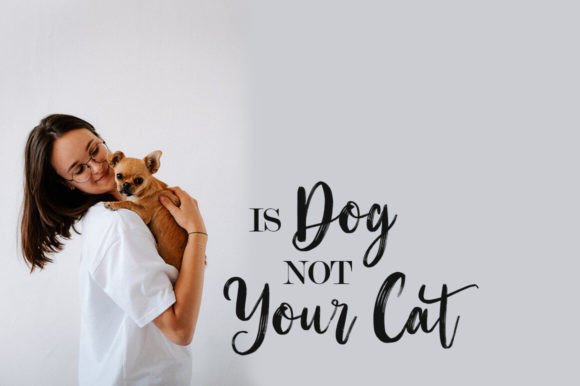
Introduction to Marley Garden Font
Remember the moment when you stumbled upon the perfect font to match your creative vision? The one that elevates your design from good to great? For designers, finding that special something can be a game-changer. That’s exactly what the Marley Garden Font offers – a unique blend of quirkiness and elegance that sets it apart from the rest.
With over 150+ extravagant glyphs, Marley Garden Font is a design resource that’s sure to add a touch of personality to your creative project. Whether you’re working on a logo, product packaging, or a wedding invitation, this high-quality font is sure to make a statement. Plus, its transparent background makes it easy to use in any design scenario.
Key Features of Marley Garden Font
- Unique, hand-drawn style with a transparent background, allowing for easy customization
- Perfect for use in digital design, including web and mobile applications, as well as print materials
Honest Review: Marley Garden Font
I recently stumbled upon the Marley Garden Font, and I must say it’s been a delightful addition to my design resource collection. This font is a beautiful, high-quality asset that can elevate any creative project.
- High-quality design: The font is crisp, clean, and perfectly legible, making it perfect for a variety of design applications.
- Limited character set: The font’s character set is relatively limited, which may be a drawback for designers who need a more extensive range of characters.
- No bold or italic variations: While the font’s regular weight is beautiful, it would be great to see bold and italic variations to add more depth and variety.
Overall, the Marley Garden Font is a wonderful addition to any designer’s toolkit. Its high-quality design and free download make it an excellent choice for creative projects, and its transparent background makes it easy to use in a variety of applications. While it has some limitations, I believe it’s still a valuable resource for designers looking for a beautiful, high-quality font.
Tips for Getting the Most Out of Marley Garden Font
To get the most out of Marley Garden Font, use it with a transparent background to create a beautiful and elegant design. You can also experiment with different font sizes and colors to add visual interest to your project.
Marley Garden Font is perfect for a variety of creative projects, including social media graphics, flyers, posters, presentations, and documents. Its high-quality design makes it a great resource for any design project.